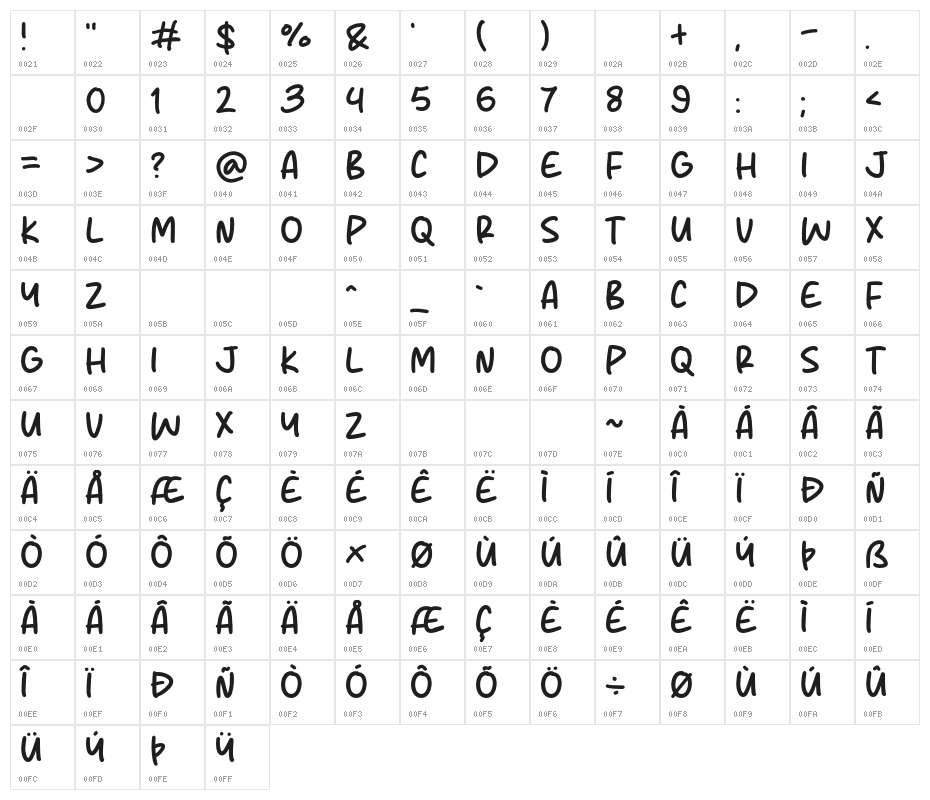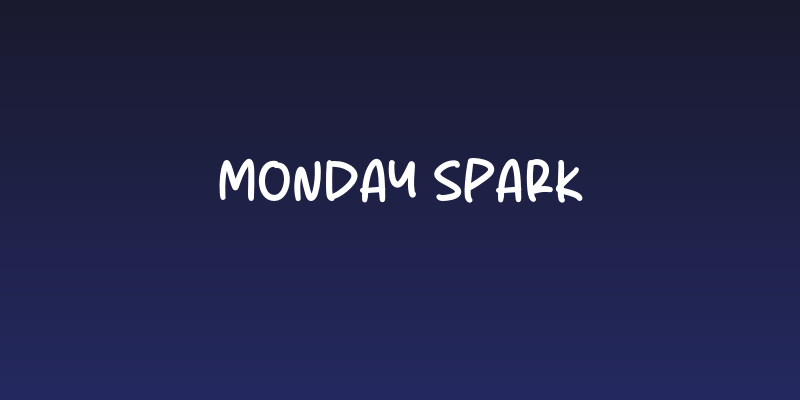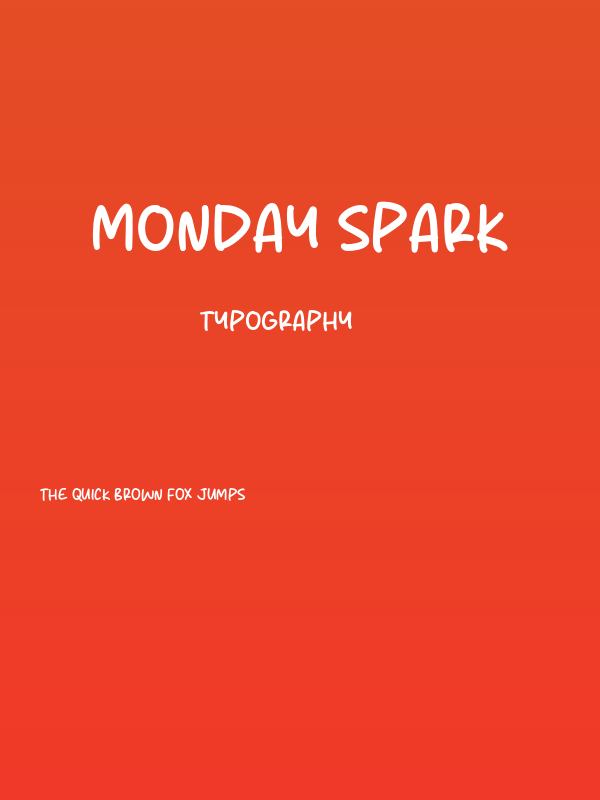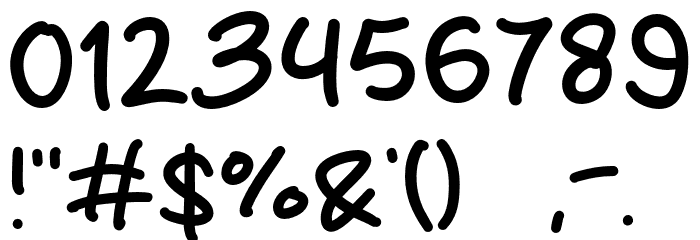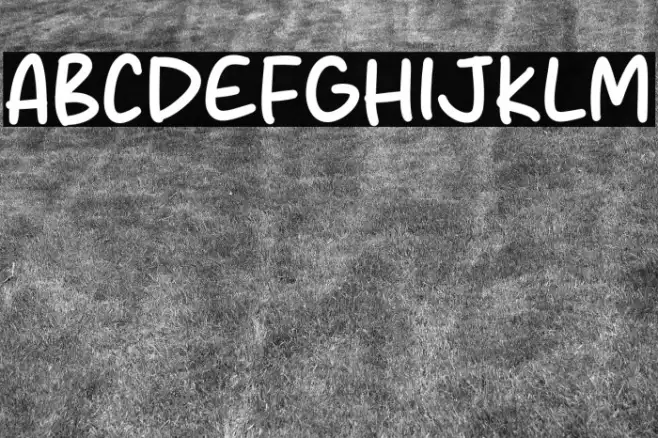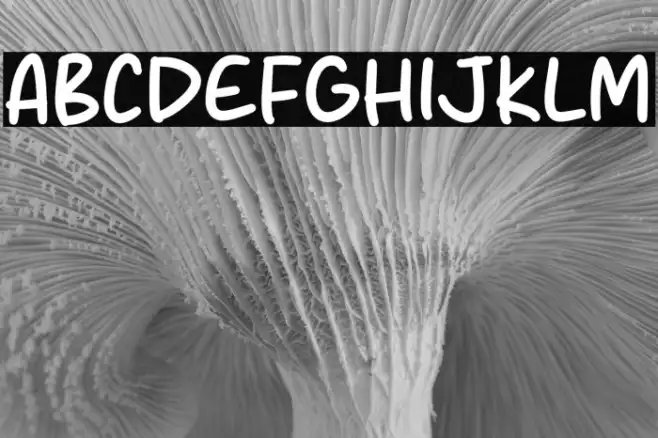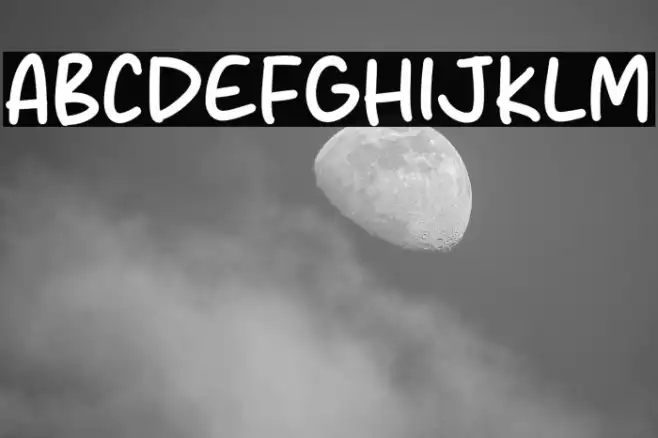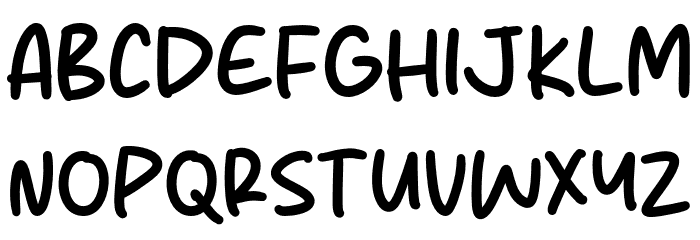
Monday Spark Font
Monday Spark Description
This font features a playful and casual handwritten style, characterized by its rounded and slightly irregular letterforms. The strokes are smooth and consistent, giving it a friendly and approachable appearance. The uppercase and lowercase letters maintain a uniform height, contributing to its readability. The numerals and special characters are designed to match the overall style, ensuring a cohesive look across all text elements. This font's informal nature makes it suitable for creative and fun projects.
| Proposed Projects | Ideal for greeting cards, children's books, casual branding, and social media graphics. |